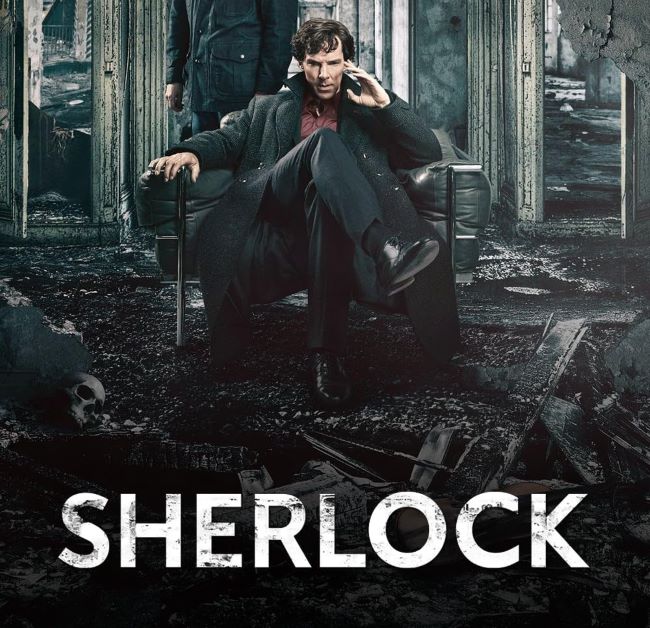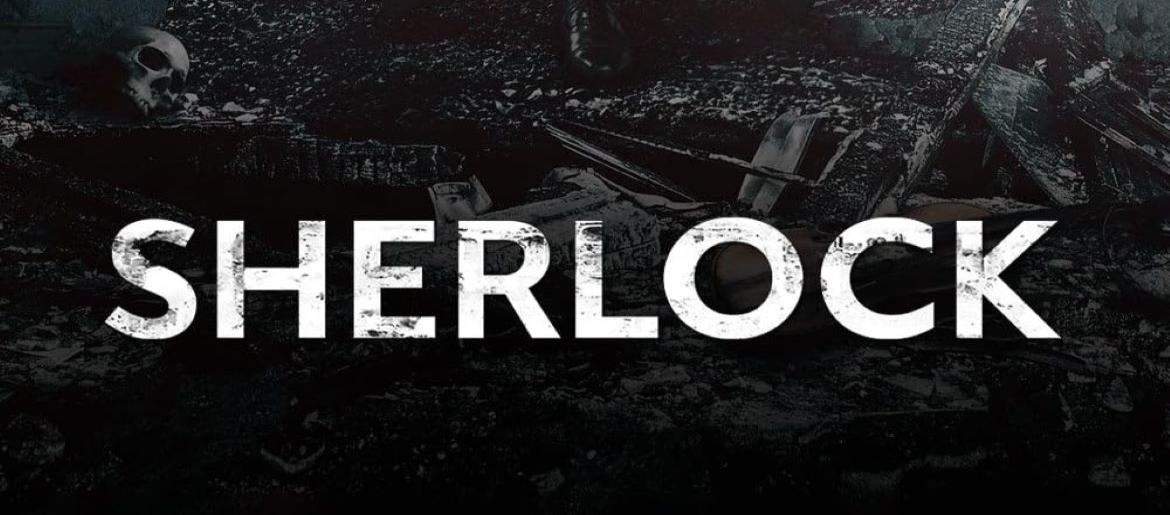
Sherlock Font
Sherlock Font delivers a modern, sharp, and intelligent aesthetic that perfectly mirrors the tone of the BBC series. Its clean sans-serif structure creates a contemporary, analytical feel—ideal for projects that need a touch of sophistication and mystery. The minimal yet bold design reflects the blend of logic, intrigue, and precision that defines Sherlock Holmes in his 21st-century reimagining.
Its understated elegance makes the Sherlock Font a great choice for posters, book covers, branding, and designs that need a crisp, intellectual feel. The typeface carries an air of refinement while still leaving room for suspense—much like the detective himself.